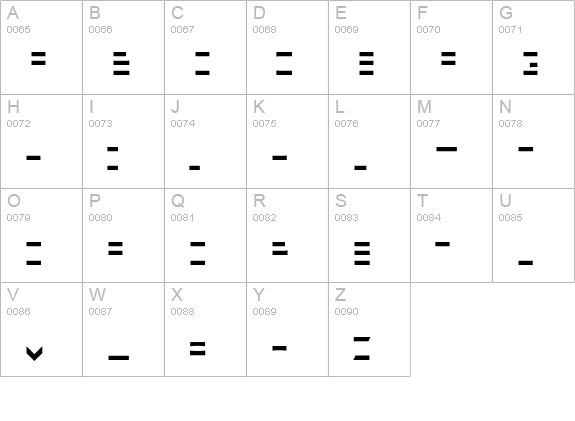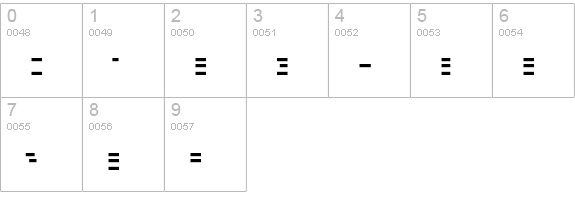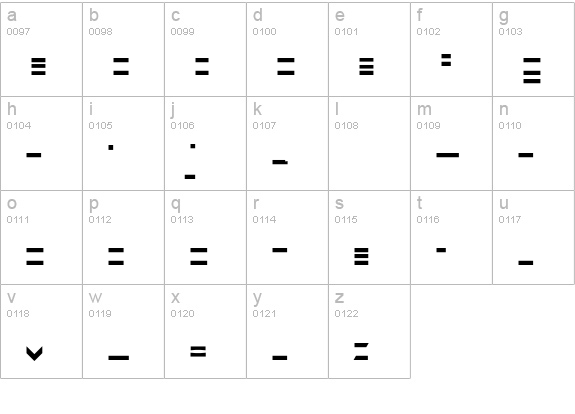
Minimum-BNoirHorizontal Font Details
Minimum-BNoirHorizontal font is a sleek and modern typeface that exudes an air of sophistication and elegance. With its clean lines and minimalist design, this font is perfect for adding a touch of class to your projects. The horizontal orientation of the letters gives it a unique and eye-catching look that is sure to make a statement. What's even better is that Minimum-BNoirHorizontal font is available for free download at FontsMarket.com. This means you can easily access this stylish font and incorporate it into your designs without having to spend a dime. Don't miss out on this fantastic opportunity to elevate your work with the Minimum-BNoirHorizontal font today!